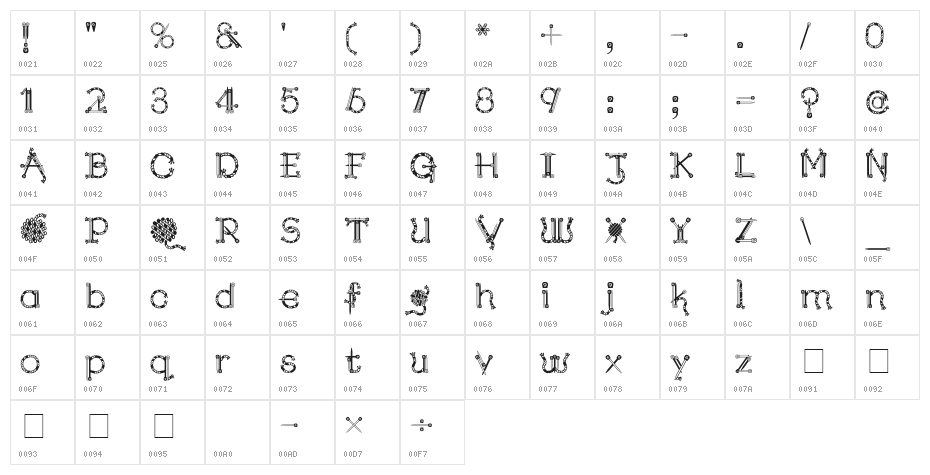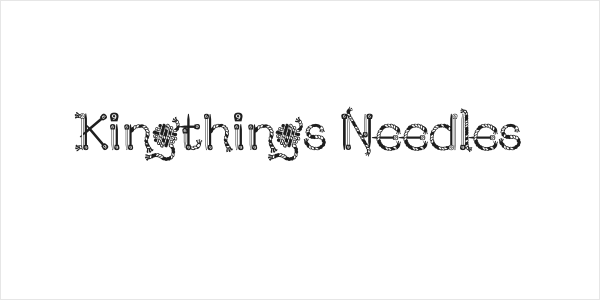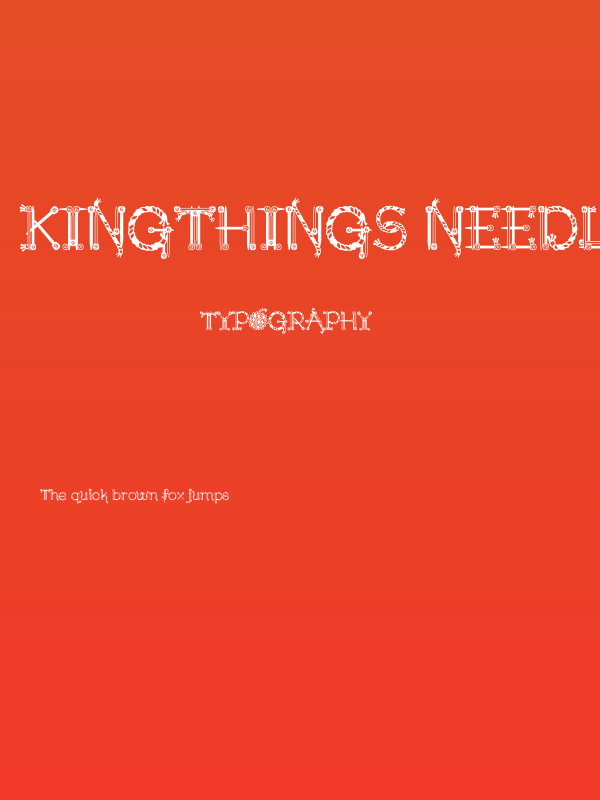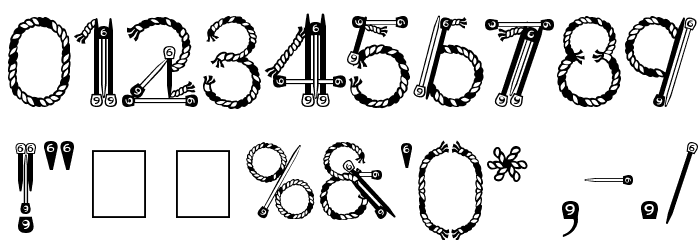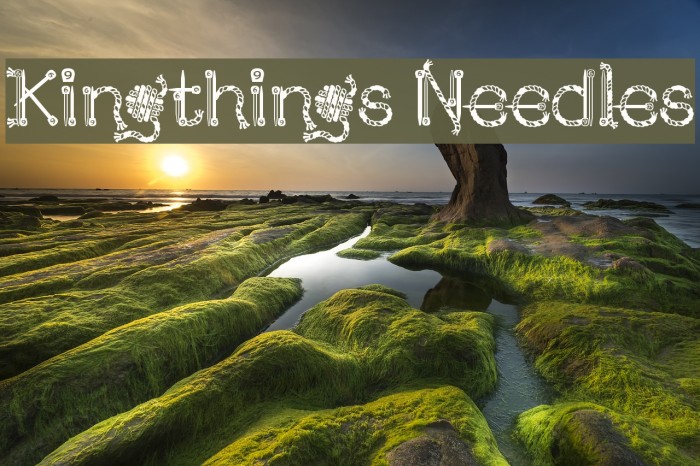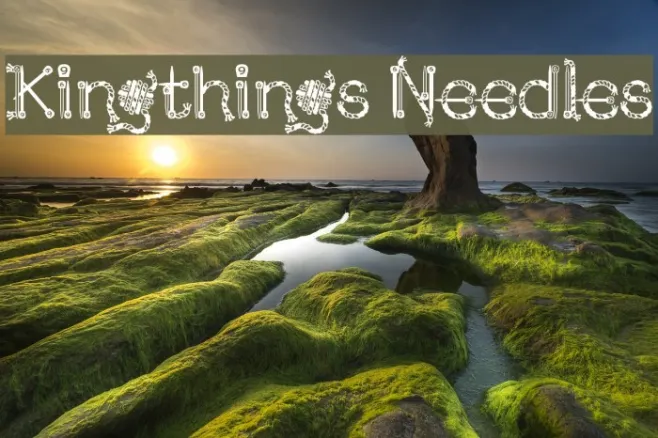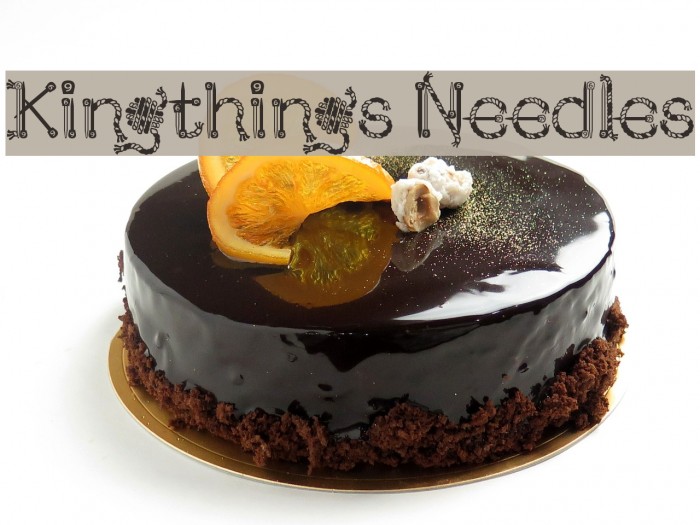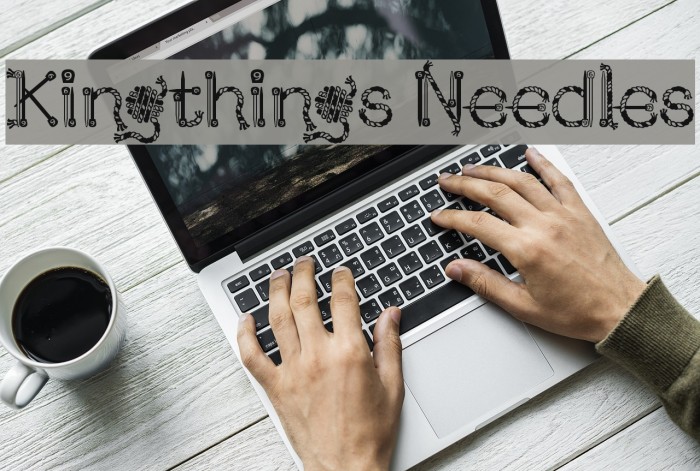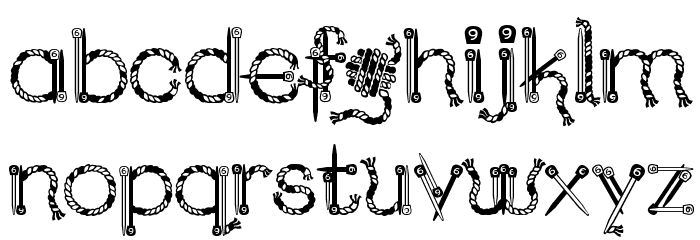
Kingthings Needles Font
Kingthings Needles Description
This font features a unique and playful design inspired by sewing and needlework. Each character is crafted to resemble elements of stitching, with intricate details such as needles, threads, and knots integrated into the letterforms. The uppercase and lowercase letters maintain a consistent theme, with embellishments that add a decorative flair. Numbers and special characters follow the same aesthetic, making the font cohesive and visually engaging. The overall appearance is whimsical and artistic, suitable for creative projects that require a touch of craftiness.
| Proposed Projects | Ideal for craft-themed projects, DIY blogs, children's book titles, and creative branding. |